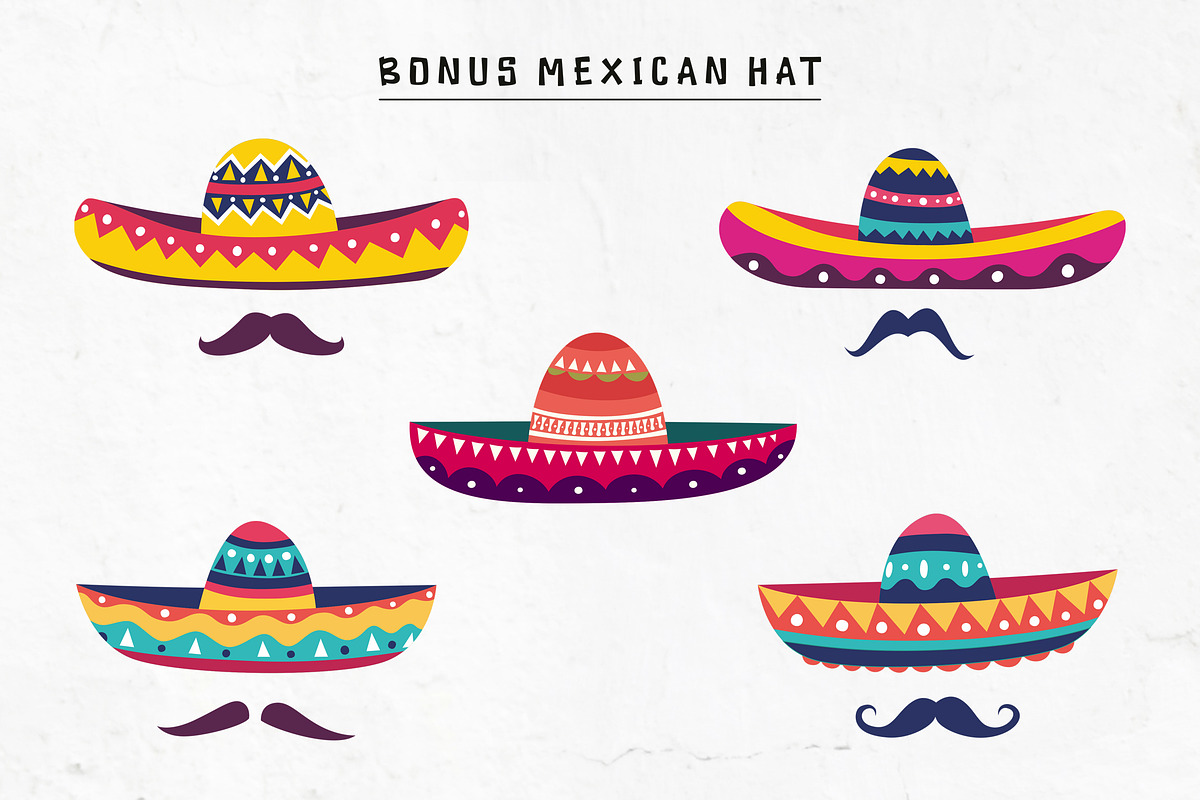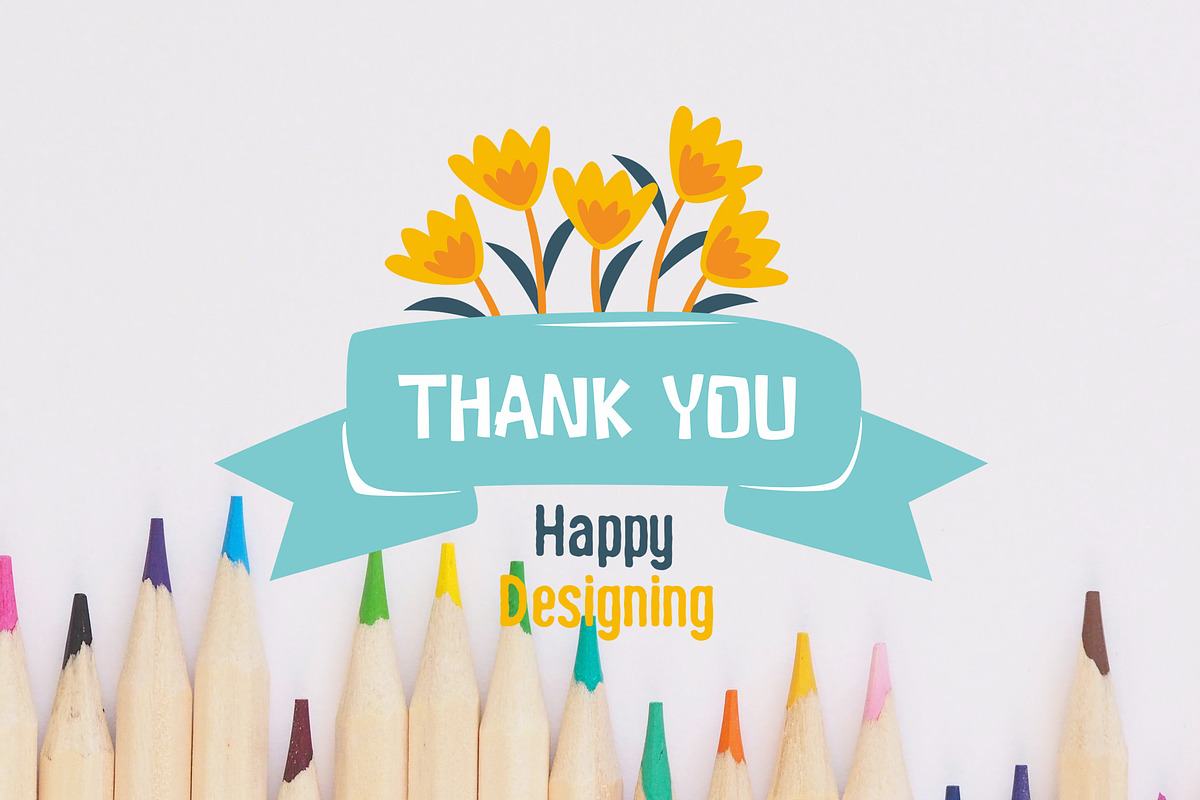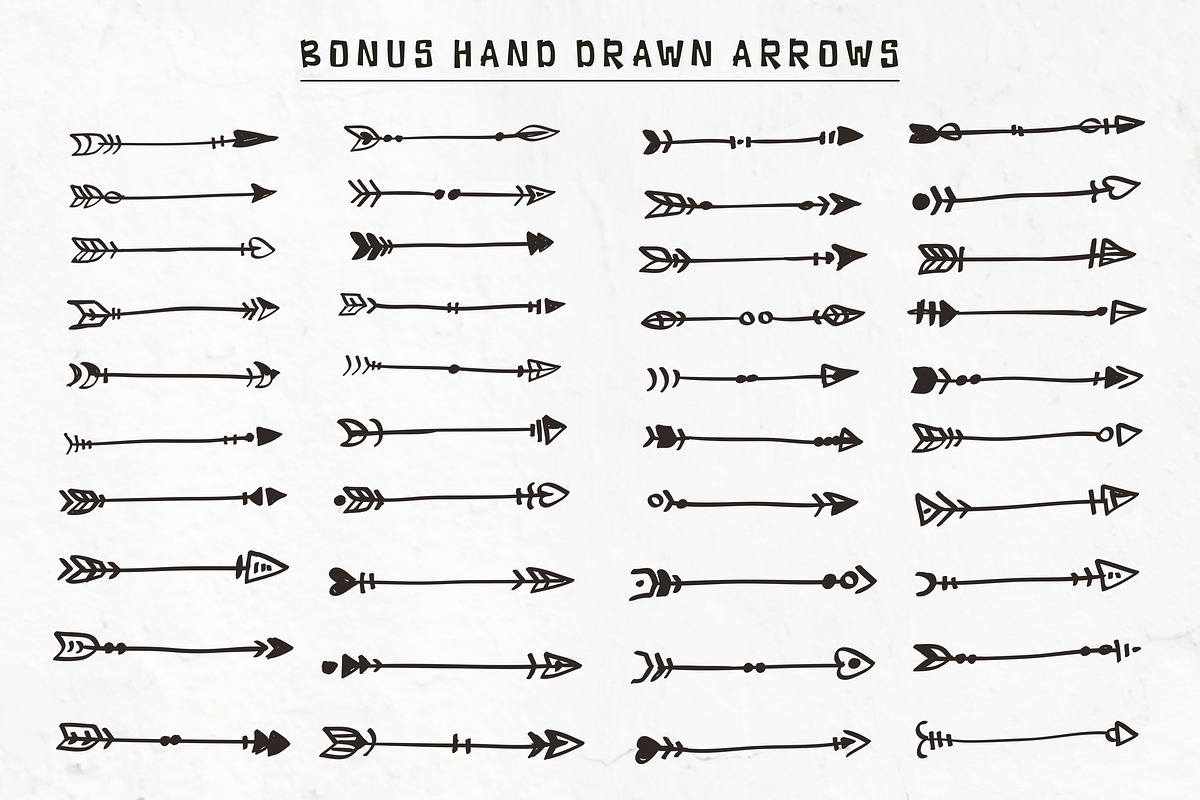
Ducky Manly
Introducing our latest creation, Ducky Manly and Ducky Manly Sans Font with two choices for good combination. This is a playful font with endless possibilities. Mix and match the upper and lowercase letters and throw in some memphis-style doodles to get exactly the look you want, 2 different style that allow you to make a great custom combination of your project.